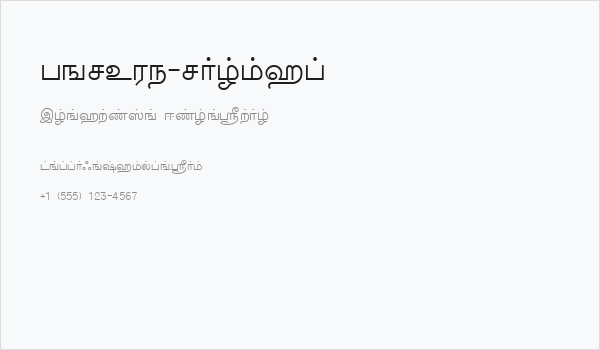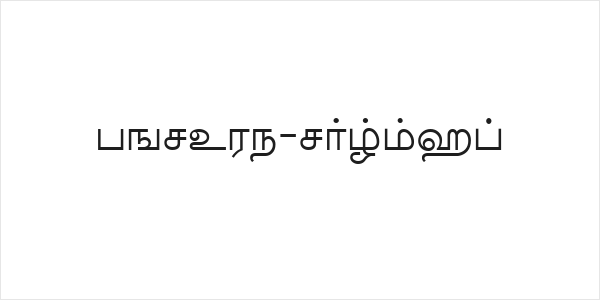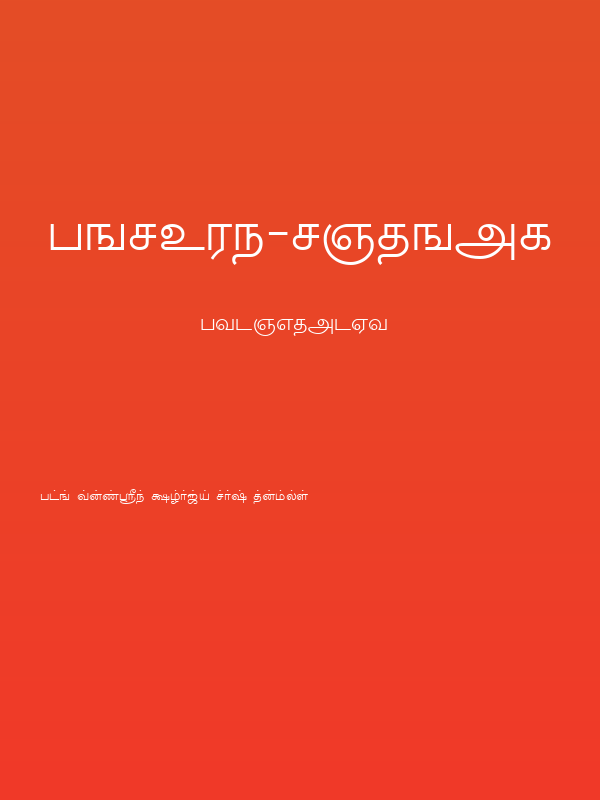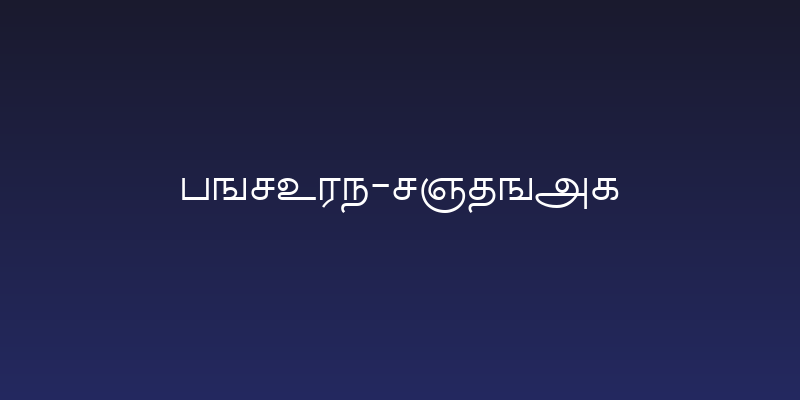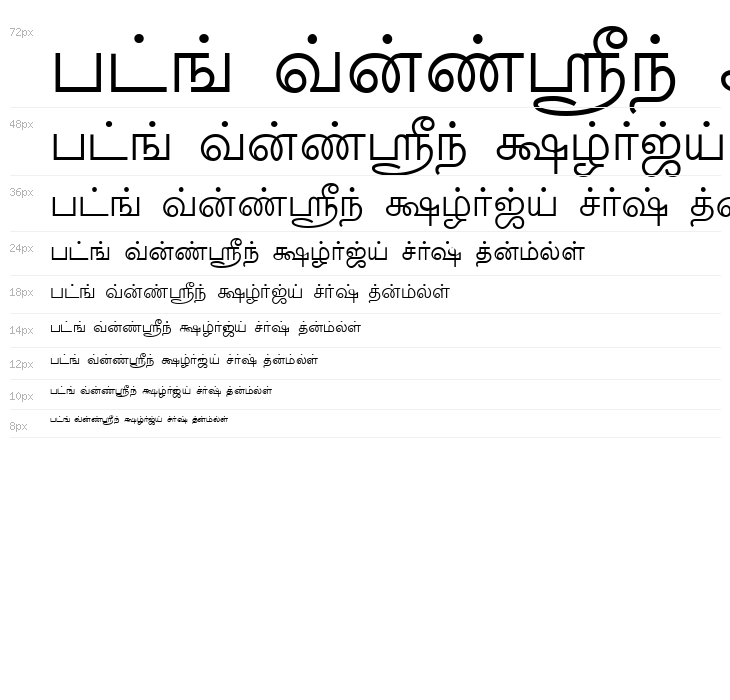
TMNEWS-Normal Font
TMNEWS-Normal Description
This font features a clean and modern design with a focus on readability. It includes a full set of Tamil characters, numerals, and a variety of punctuation marks. The characters are well-proportioned, with a consistent stroke width that gives the font a balanced and harmonious appearance. The rounded edges and smooth curves contribute to its approachable and friendly style. The numerals are clear and distinct, making them easy to read at various sizes. This font is versatile, suitable for both digital and print media, and can be used effectively in a range of applications.
Use CaseBody text, Educational materials, Digital content
Proposed ProjectsIdeal for educational materials, websites, digital content, and print media requiring Tamil script.